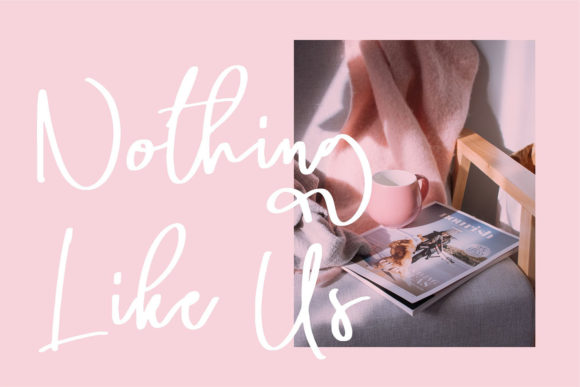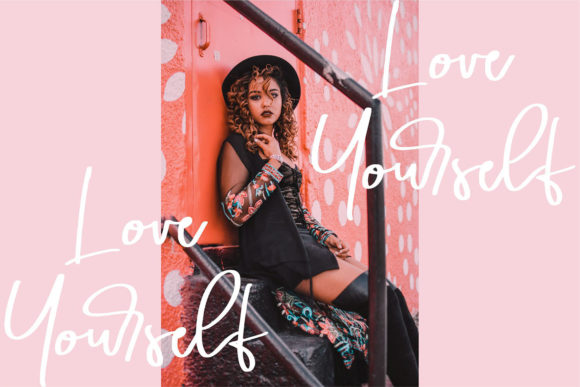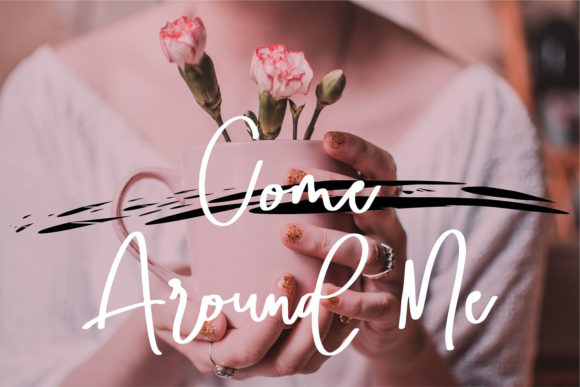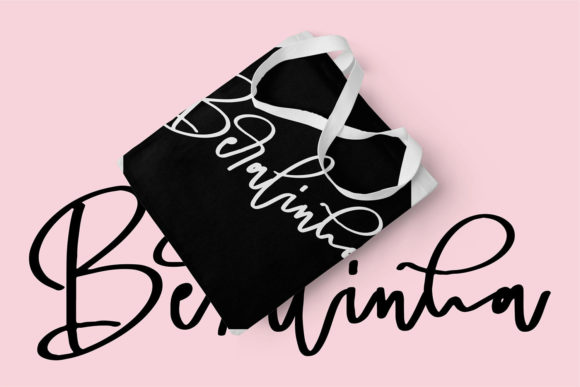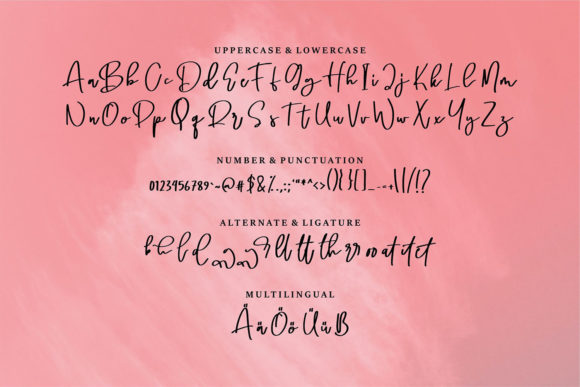
Introduction to Shaniga Font
Have you ever stared at a blank canvas, struggling to find the perfect font to bring your creative project to life? We’ve all been there. But what if I told you that there’s a font that can make your designs stand out and leave a lasting impression? Enter the Shaniga Font, a modern, whimsical, and relaxed paint-brushed script font that’s about to become your new best friend.
Key Features of Shaniga Font
- Unique characteristics include a bold and modern aesthetic, making it perfect for digital and print designs
- Designed to be highly legible, even at small font sizes, ensuring readability in various contexts
Honest Review: Shaniga Font
What works well: ✨ The Shaniga Font has a unique, modern design aesthetic that’s perfect for creative projects that require a touch of sophistication. The font is highly versatile and can be used in a variety of contexts, from digital products to print materials. I also appreciate the transparent background, which makes it easy to layer and manipulate in design applications.
Limitations: ⚠️ One thing to note is that the font may not be suitable for all design projects. Its modern design aesthetic may not be the best fit for more traditional or vintage-themed projects. Additionally, the font may not be as extensive as some other commercial fonts, with a limited character set.
- Unique, modern design aesthetic
- Highly versatile and suitable for various contexts
- Limited character set may not be suitable for all projects
The Shaniga Font is versatile and can be used in a variety of design contexts, including branding, graphics, and digital content. It’s particularly suitable for titles, headings, and short paragraphs where a clean and modern aesthetic is desired.